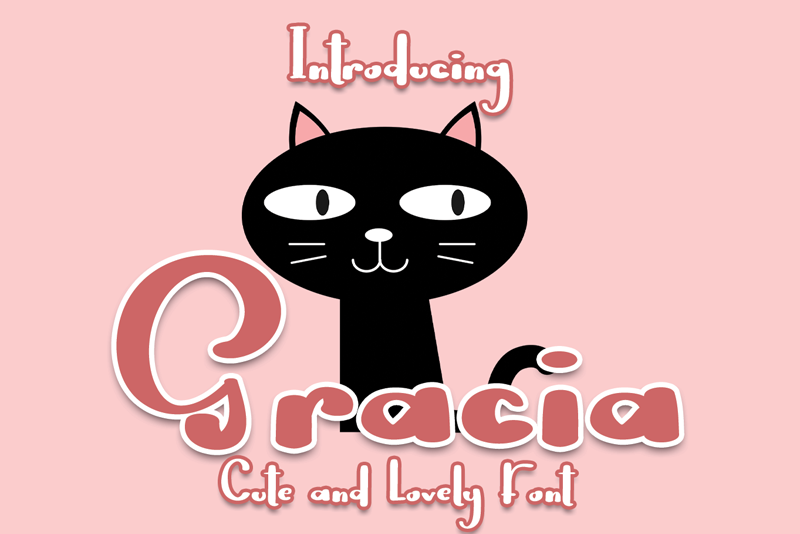
Font name: | Gracia |
Author: | Luluk Surotul |
Gracia is a cute display font. Clean and a little bit quirky, this font is the perfect fit for all of your logos, branding, social media, and crafty DIY projects. Attention : Gracia display font is prohibited to use this font for commercial purposes or for profit without the permission of the author/admin, without being known to use this font without permission, will be subject to sanctions 5x the specified price. This font is used only for demos (Demo license) If you want to use this font for commercial use please contact email: elllulukstudio123@gmail.com or click the link below: https://www.creativefabrica.com/product/gracia-2/ref/761303/ If you want to see more other fonts, please click: https://www.creativefabrica.com/designer/el_hotcig Any donations are very appreciated. Paypal account for donation: https://www.paypal.com/paypalme/luluk783 thanks. |